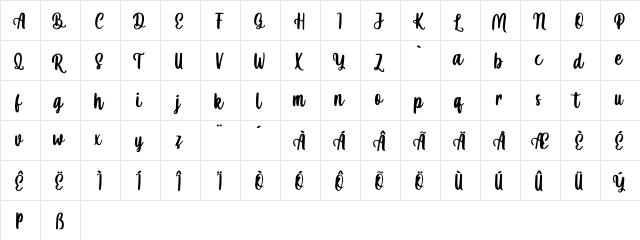
mahira demo Regular
| Designer | Farul Arjianto |
Design Context for mahira demo Typeface
mahira demo is a composed and adaptable typeface that performs quietly and consistently across a wide range of design contexts.